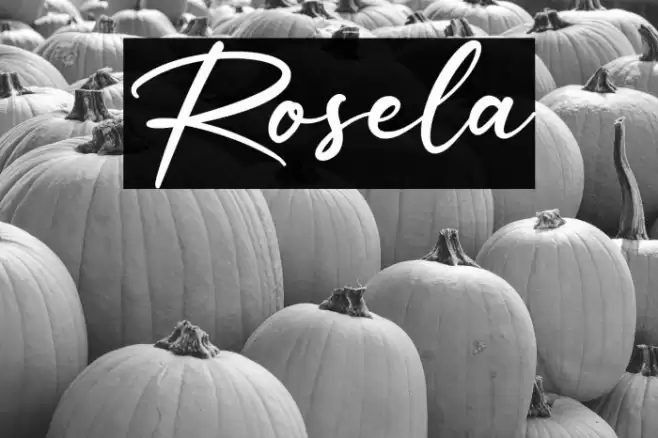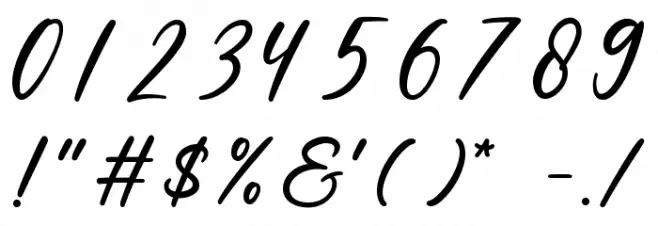
Rosela Font
Rosela Description
This font exudes a modern and elegant script style, characterized by its fluid and connected letterforms. The uppercase letters maintain a consistent slant, giving a sense of movement and grace. The lowercase letters are equally fluid, with some characters featuring distinctive loops and swashes that add a touch of sophistication. The numerals are clear and maintain the script style, ensuring readability while retaining elegance. Special characters are well-integrated, maintaining the overall aesthetic of the font. The font's design is perfect for projects that require a personal and stylish touch, such as invitations, branding, and social media graphics.
A modern, elegant script font with fluid, connected letterforms from Regular fonts.